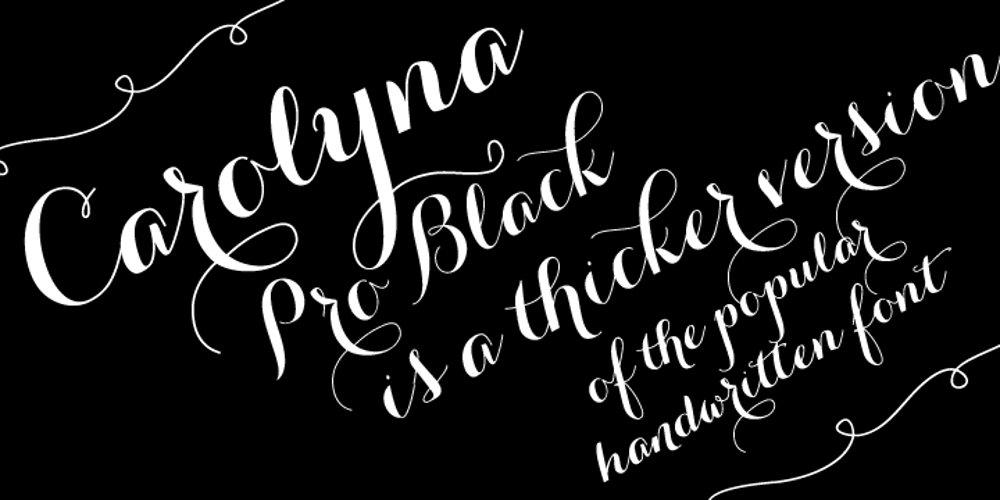
Carolyna Pro Black Font Family was designed by Emily Conners and published by Emily Lime. Carolyna Pro Black contains 1 styles and family package options. Carolyna Pro Black is the bolder sibling of Carolyna Pro. It is an elegant, yet whimsically handwritten calligraphy font that was created with readability in mind. It uses open-type features to assist with letter flow and to give each creation that modern, hand-lettered touch. With over 1000 characters, there are many stylistic alternatives from which choose, tons of foreign characters so you can write in other languages, and fun swashes to give headings a little something extra. Note: This font works best with open-type friendly applications.